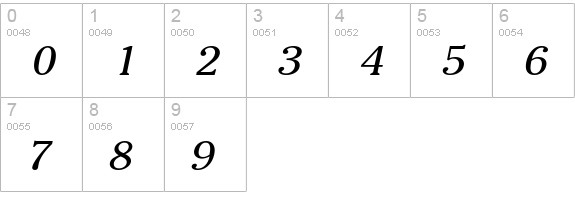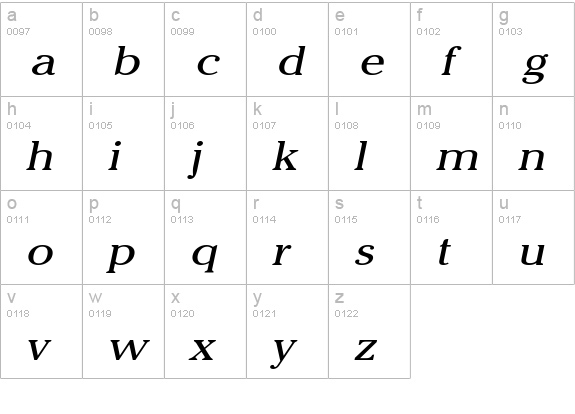
Chelsey Wide Italic Font Details
Chelsey Wide Italic is a distinctive, extended-width, italic variant in the Chelsey typeface family \xE2\x80\x94 well suited to design and typography projects.
Chelsey Wide Italic font is a sleek and elegant typeface that exudes sophistication and modernity. With its wide letterforms and italic styling, this font is perfect for adding a touch of flair to any design project. The smooth curves and unique angles of Chelsey Wide Italic make it a versatile choice for a wide range of applications, from branding to editorial design. What's even better is that Chelsey Wide Italic font is available for free download at FontsMarket.com! This means you can easily access this stylish font and use it in your projects without any cost. Whether you're working on a website, poster, or any other design project, Chelsey Wide Italic font will elevate your work and give it a polished and professional look. Download it now and let your creativity shine with this beautiful and freely available typeface.